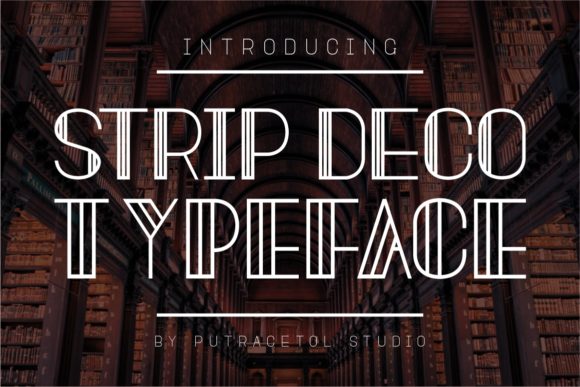
Introducing Strip Deco Font: The Ultimate Modern Display Font
Are you looking for a font that can add a touch of modernity and sophistication to your designs? Look no further than the Strip Deco Font. Inspired by the art deco movement, this unique display font is perfect for creating stunning logos, t-shirts, quotes, packaging, titles, posters, labels, greeting cards, and much more.
What is Strip Deco Font?
The Strip Deco Font is a modern display font that combines the elegance of art deco with the simplicity of clean lines. Its strict and clean design makes it perfect for creating visually appealing designs that require a touch of sophistication. Whether you’re a designer, artist, or simply someone who loves to create, this font is sure to become a valuable addition to your toolkit.
The Inspiration Behind Strip Deco Font
The Strip Deco Font was inspired by the art deco movement, which emerged in the 1920s and flourished until the 1940s. Characterized by its use of geometric shapes, clean lines, and ornate details, art deco was a popular style for designing everything from buildings to furniture to fashion accessories. The Strip Deco Font takes the essence of art deco and updates it with a modern twist, making it perfect for contemporary designs.
Key Features of Strip Deco Font
The Strip Deco Font has several key features that make it an excellent choice for designers:
- Unique and modern design: The Strip Deco Font has a distinctive look that sets it apart from other fonts. Its clean lines and geometric shapes give it a modern feel that’s perfect for creating stunning designs.
- High versatility: This font can be used for a wide range of design projects, from logos and t-shirts to quotes and packaging.
- Ease of use: The Strip Deco Font is easy to read and works well in both large and small sizes, making it perfect for creating designs that need to be legible.
- Art deco inspiration: The font’s art deco inspiration gives it a touch of elegance and sophistication, making it perfect for designs that require a level of refinement.
Uses of Strip Deco Font
The Strip Deco Font is an incredibly versatile font that can be used for a wide range of design projects, including:
- Logos: The font’s modern and sleek design makes it perfect for creating logos that require a touch of sophistication.
- T-shirts: The Strip Deco Font is a great choice for designing t-shirts that require a bold and eye-catching font.
- Quotes: The font’s clean lines and geometric shapes make it perfect for creating stunning quote designs.
- Packaging: The Strip Deco Font can be used to create eye-catching packaging designs that require a level of sophistication.
- Titles and posters: The font’s modern design makes it perfect for creating titles and posters that require a bold and eye-catching font.
- Labels and greeting cards: The Strip Deco Font can be used to create labels and greeting cards that require a touch of elegance and sophistication.
Benefits of Using Strip Deco Font
Using the Strip Deco Font offers several benefits, including:
- Instant recognition: The font’s unique design makes it instantly recognizable, which can help to create a strong brand identity.
- Professional look: The Strip Deco Font has a professional and polished look that can help to elevate your designs.
- Easy to read: The font’s clean lines and geometric shapes make it easy to read, even in small sizes.
- Flexibility: The Strip Deco Font can be used for a wide range of design projects, making it a valuable addition to your toolkit.
Tips for Using Strip Deco Font
Here are some tips for using the Strip Deco Font:
- Use it sparingly: The Strip Deco Font is a bold and eye-catching font, so use it sparingly to avoid overwhelming your designs.
- Experiment with colors: The font’s modern design makes it perfect for experimenting with different colors and gradients.
- Pair it with other fonts: The Strip Deco Font can be paired with other fonts to create a unique and visually appealing design.
- Use it for headings: The font’s bold and eye-catching design makes it perfect for use as headings in your designs.
The Strip Deco Font is a unique and modern display font that’s perfect for creating stunning designs. Its art deco inspiration and clean lines make it a valuable addition to any designer’s toolkit. With its high versatility, ease of use, and professional look, the Strip Deco Font is sure to become a go-to font for designers and artists alike.